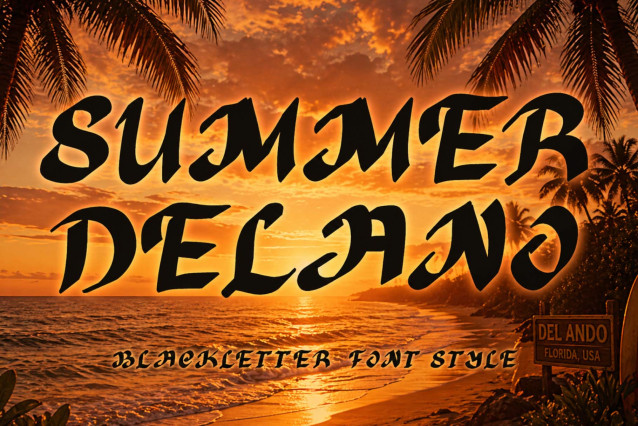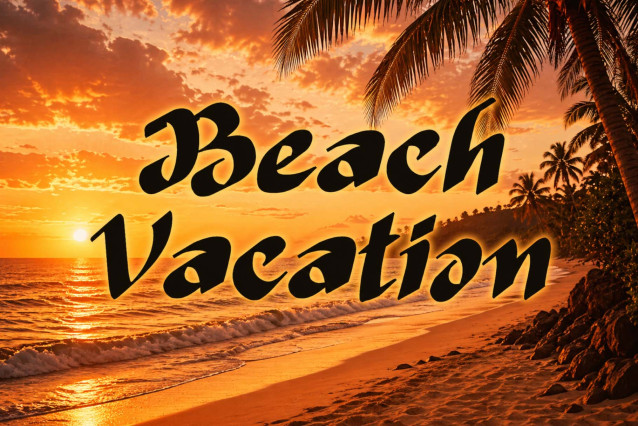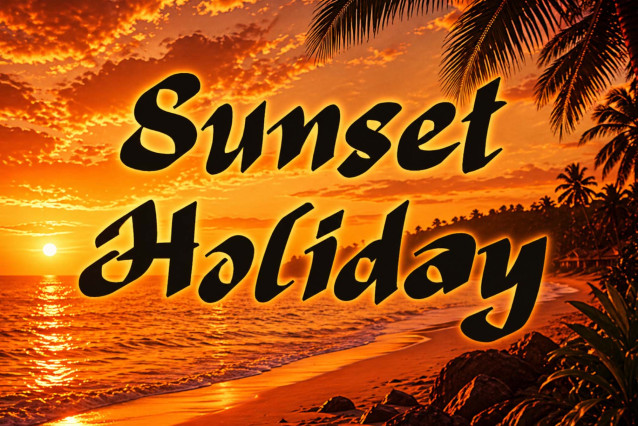
Summer Delano Font
“Summer Delano” is an elegant blackletter font. It features uppercase and lowercase letters, numbers, punctuation, and multilingual support. It’s suitable for Easter, holidays, vacations, back to school, Christmas, tattoos, social media, spring, summer, Halloween, movie titles, comic titles, stickers, posters, banners, prints, branding, t-shirts, and more.